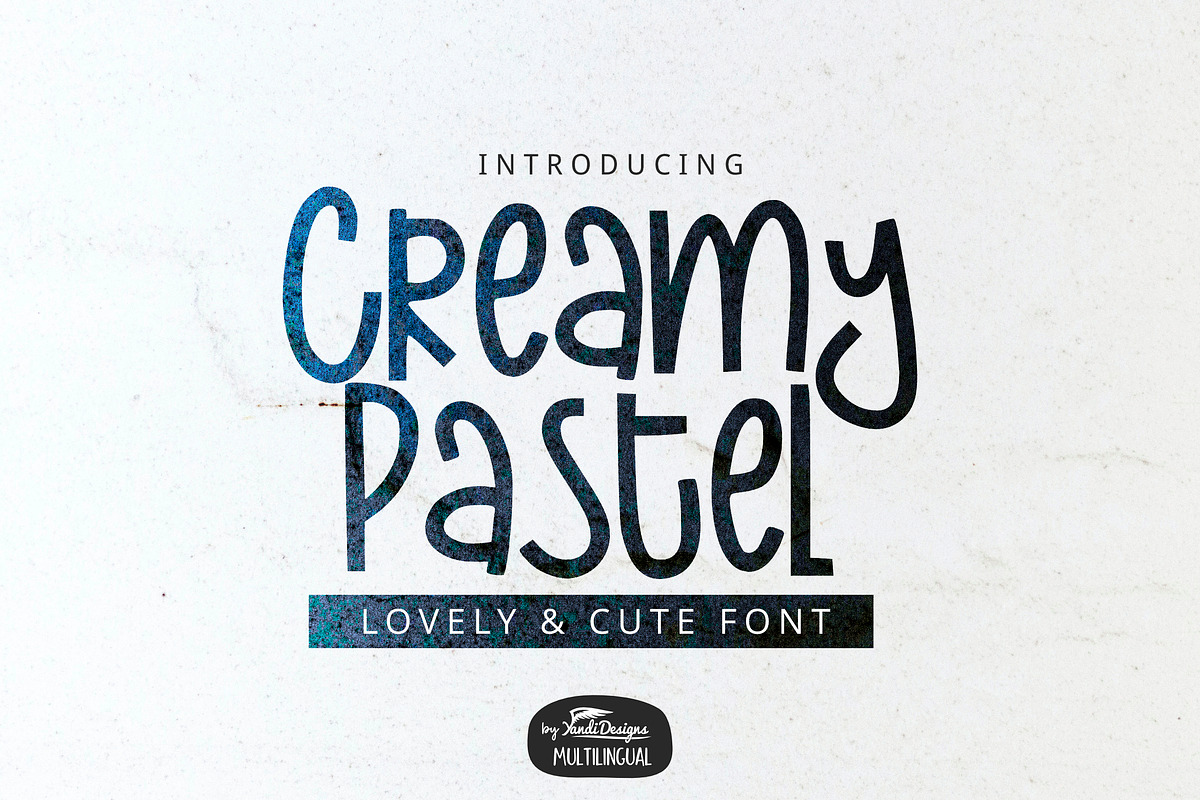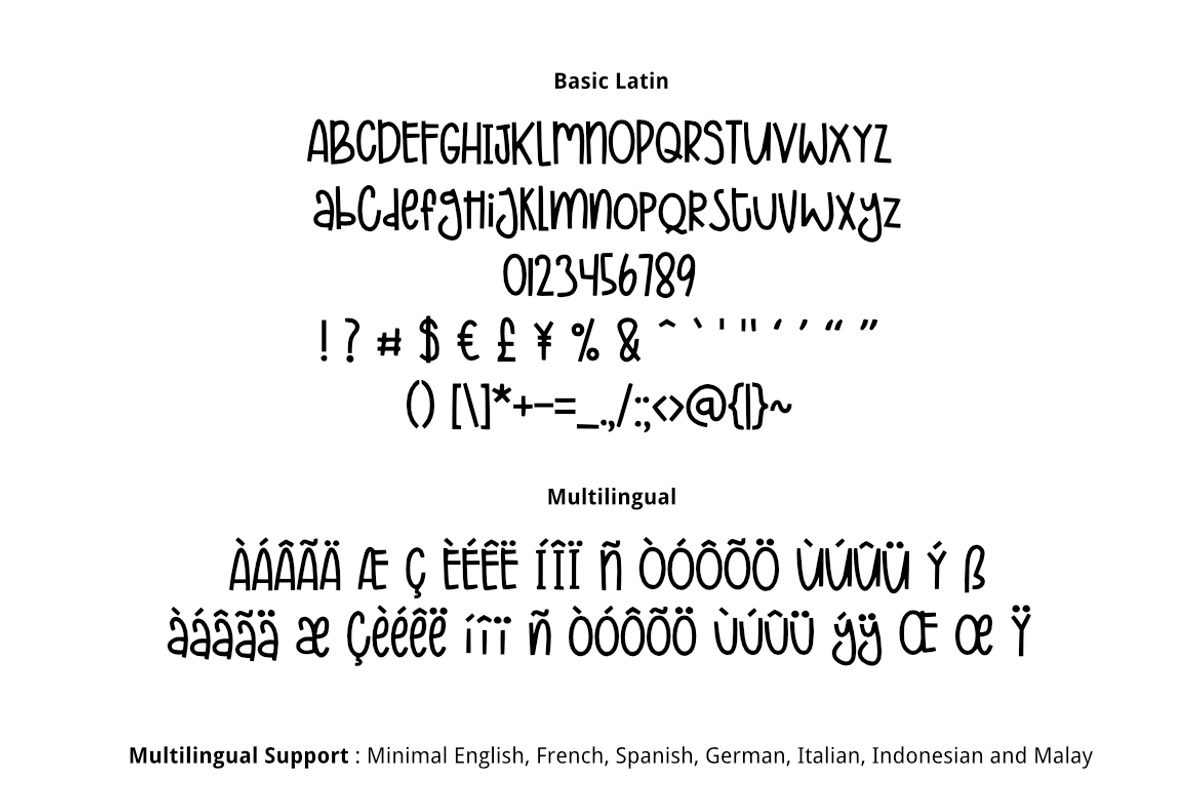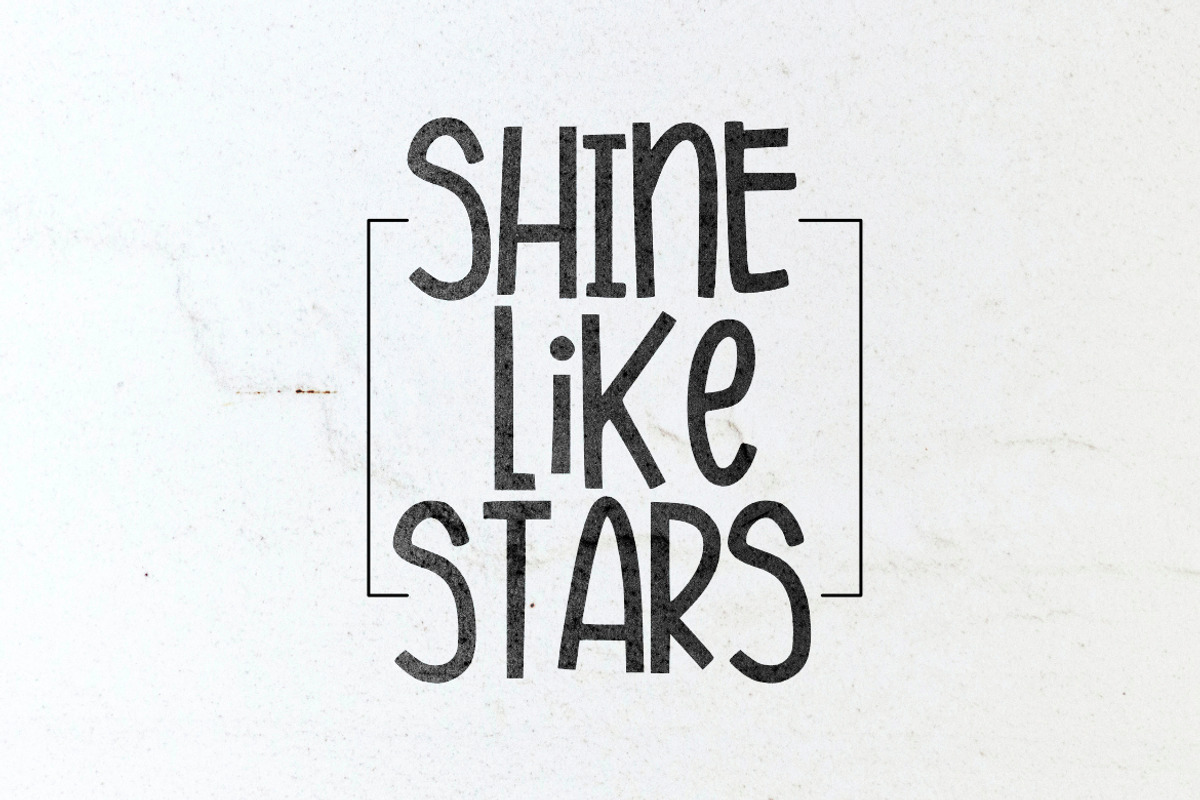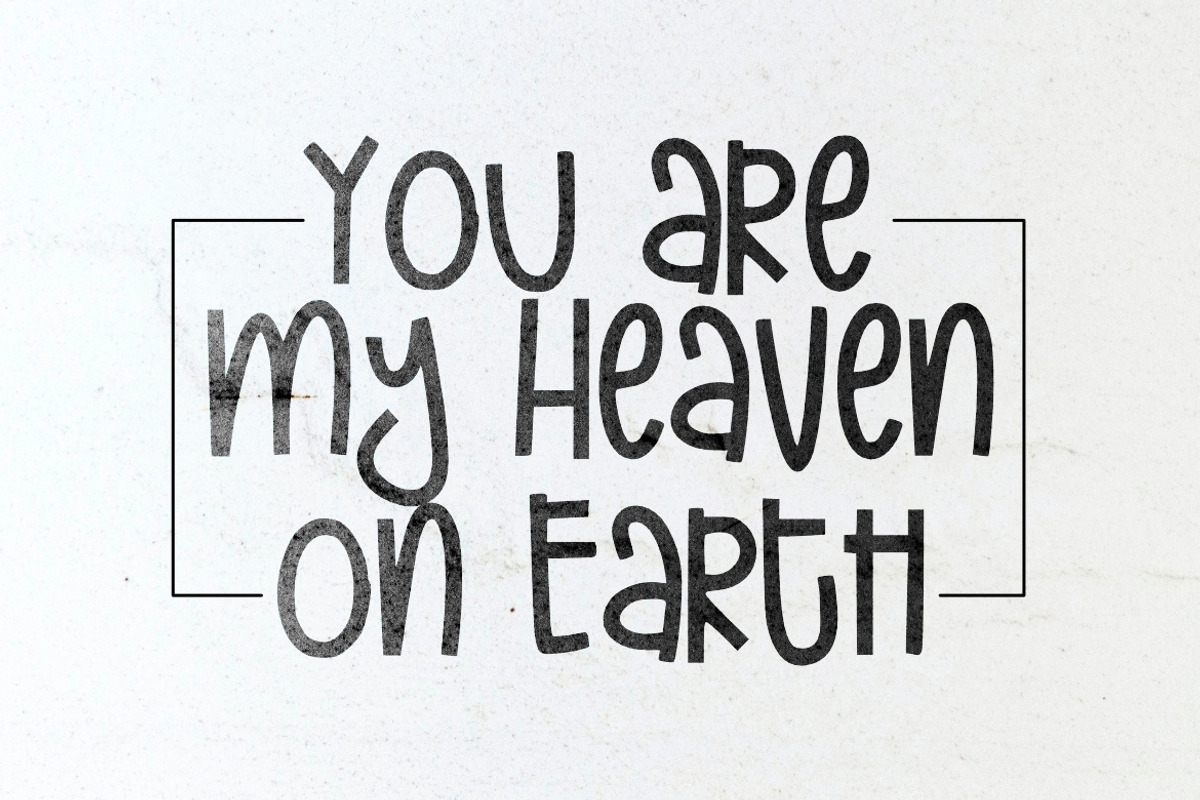
Creamy Pastel Font
Creamy Pastel Font is lovely cute multipurpose handmade font, suitable for many project children book, quotes, logo , heading , title etc.
Creamy Pastel Font by YandiDesigns fits naturally into Branding, posters, packaging, typography.